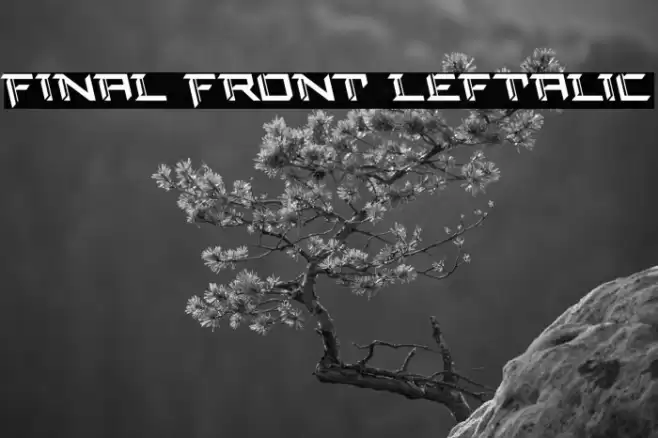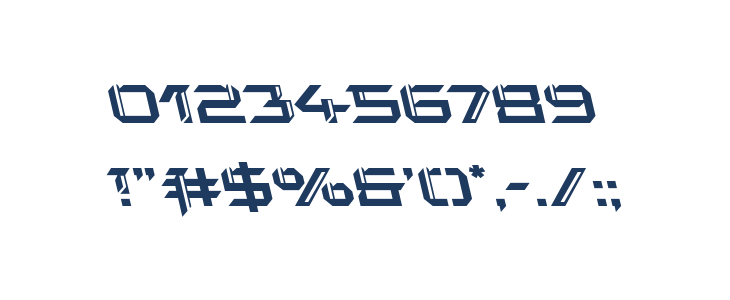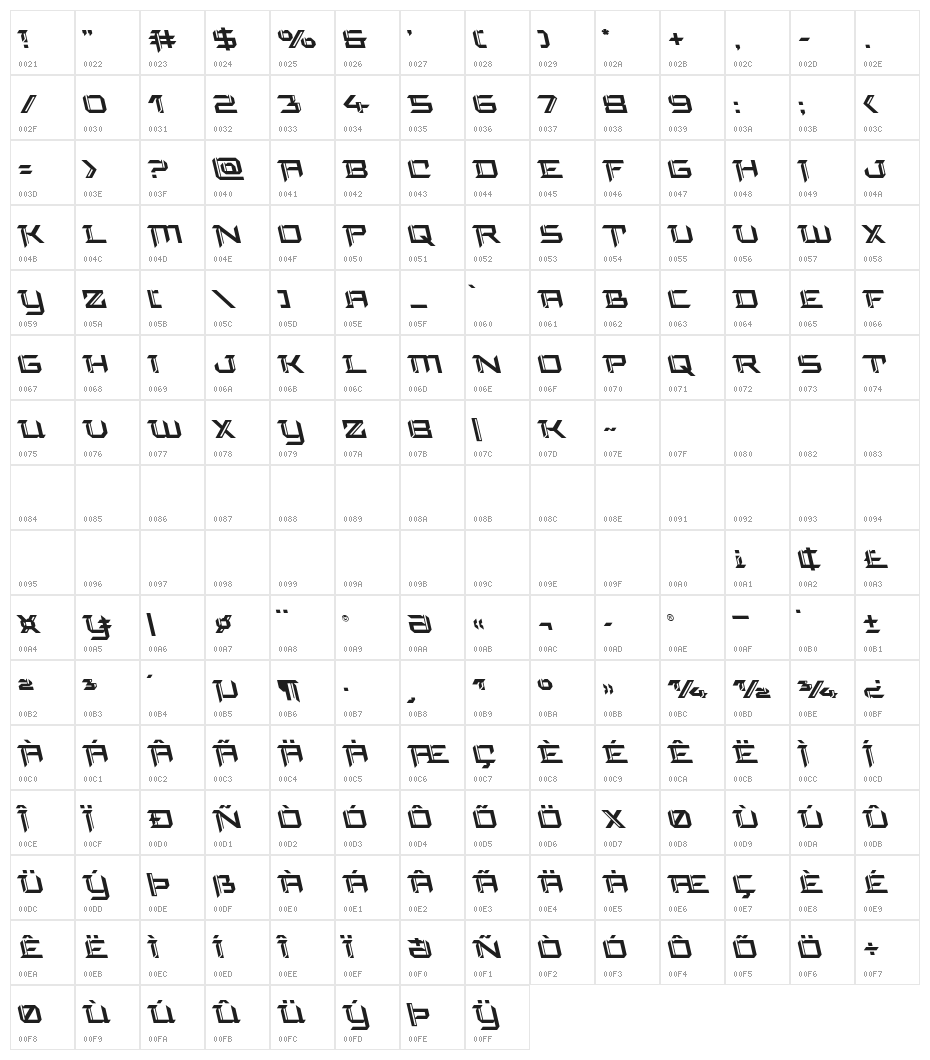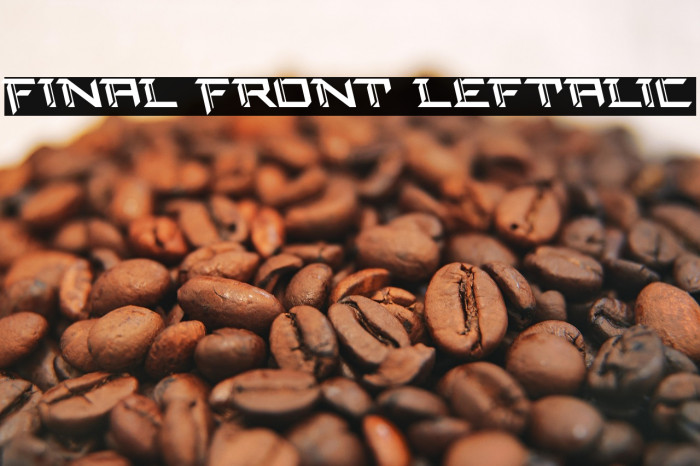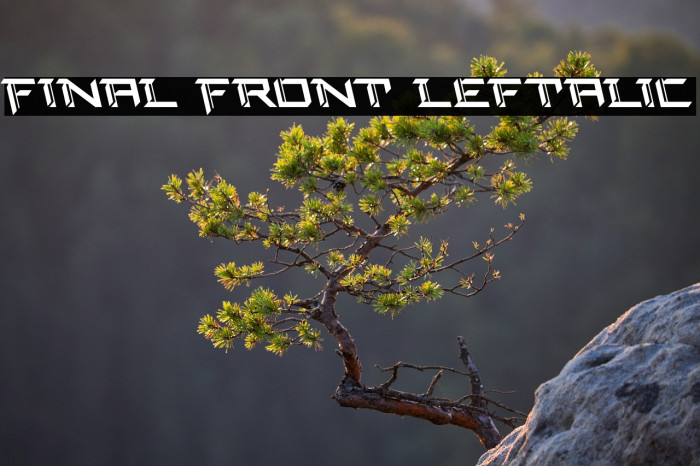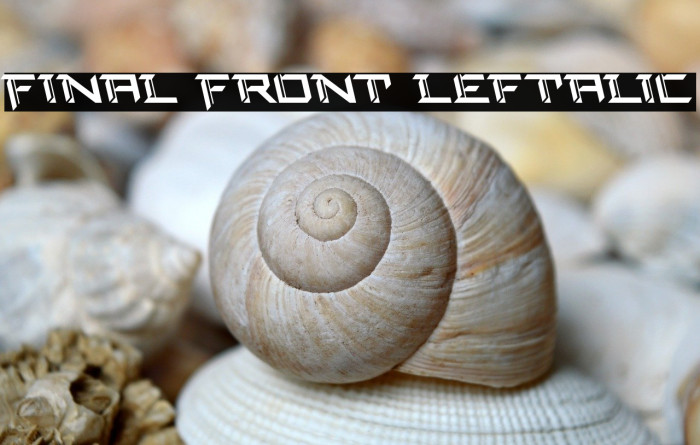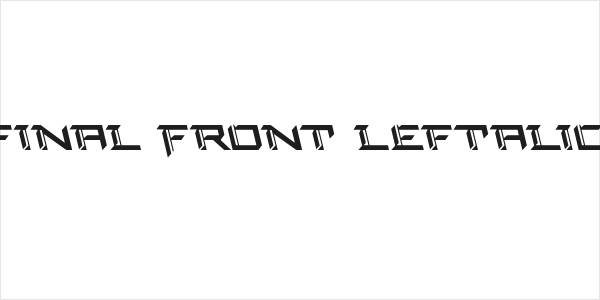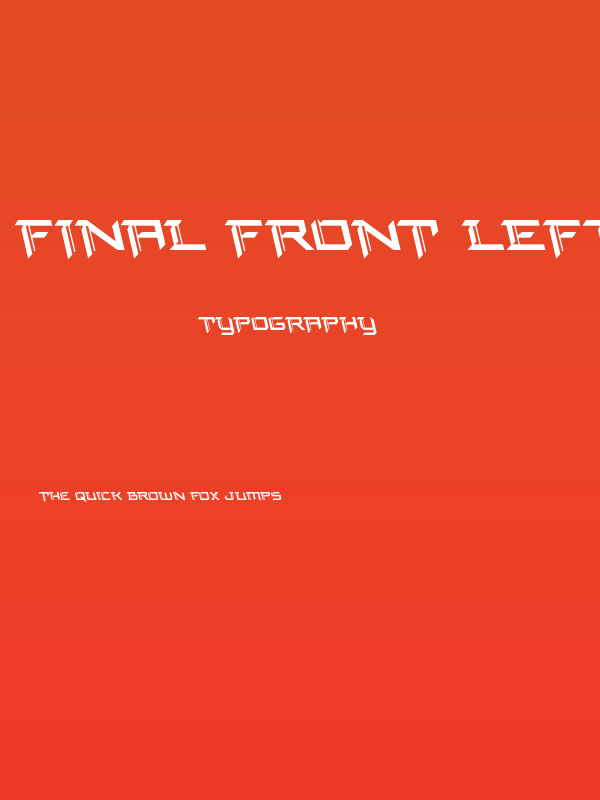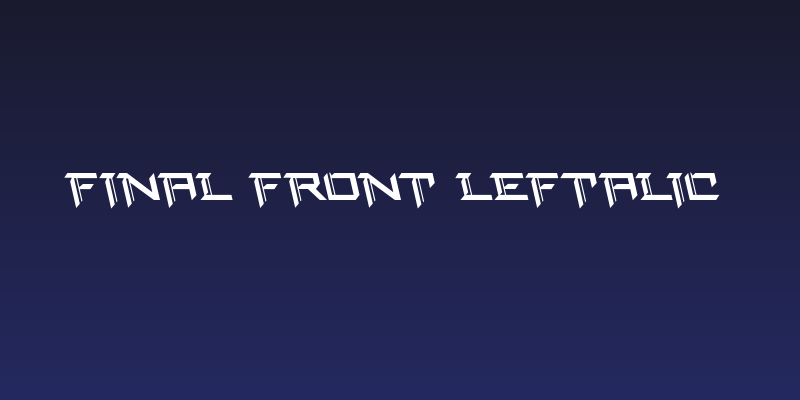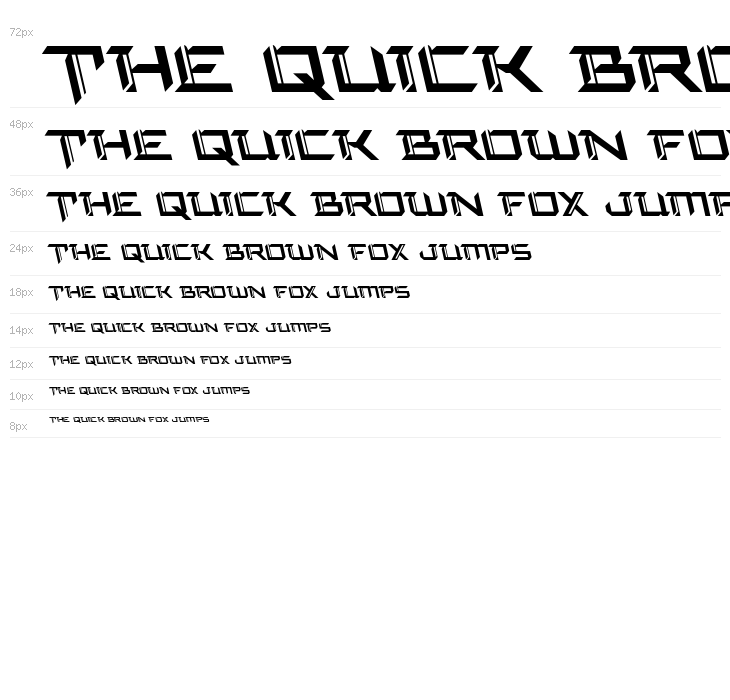
Final Front Leftalic Font
Final Front Leftalic Description
This font features a bold and futuristic design with angular, geometric shapes that create a sense of movement and dynamism. The characters are constructed with sharp edges and a three-dimensional effect, giving them a unique and striking appearance. The uppercase and lowercase letters maintain a consistent style, while the numbers and special characters complement the overall aesthetic. The font's design is reminiscent of digital or sci-fi themes, making it suitable for projects that require a modern and edgy look.
A bold, futuristic font with angular, geometric shapes and a dynamic, three-dimensional effect from Uncategorized fonts.
- Proposed Projects: Ideal for sci-fi themed designs, video game titles, tech branding, and futuristic posters.